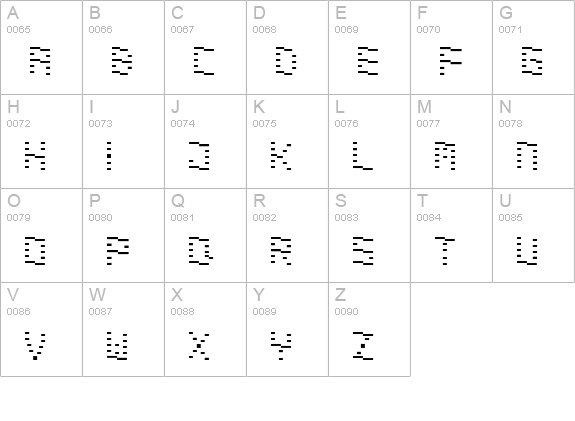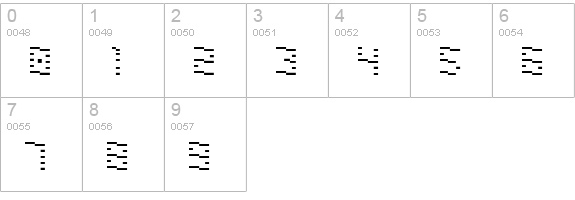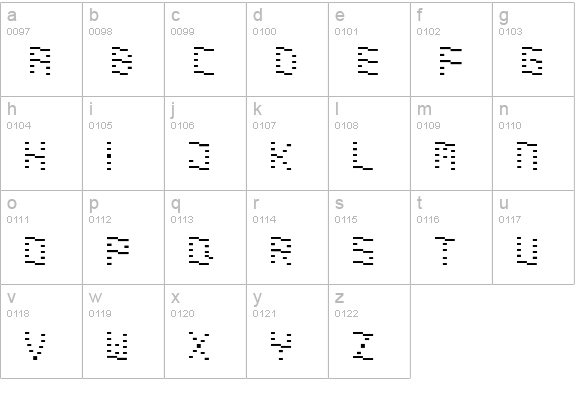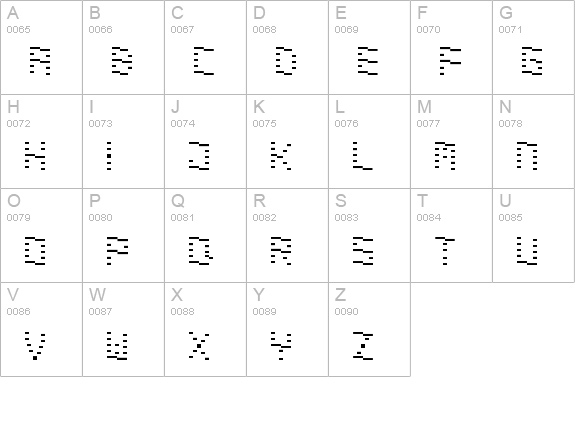
Dematerialise Thin is a delicate, low-contrast variant in the Dematerialise typeface family \xE2\x80\x94 well suited to fashion editorial, minimal branding, and high-contrast display.
Dematerialise Thin font is a visually captivating and elegantly designed typeface that effortlessly captures attention with its delicate and refined appearance. Its thin strokes and minimalistic structure make it perfect for projects that require a touch of sophistication and modernity. This font exudes a sense of grace and simplicity, making it a versatile choice for a wide range of design applications. From logo designs to editorial layouts, Dematerialise Thin font adds a touch of class and elegance to any project it is used in. With its clean lines and sleek design, this font is a true masterpiece that can effortlessly elevate your designs to the next level. Its thin proportions give it a refined and airy feel, making it ideal for projects that demand a light and minimalistic touch. But what makes Dematerialise Thin font even more appealing is that it is freely available to download at FontsMarket.com. This means that you can easily access and use this beautiful font in your projects without any hassle or cost. Whether you are a professional designer or an aspiring artist, having access to high-quality and free resources like Dematerialise Thin font can truly make a difference in your creative journey. So, if you are looking to add a touch of elegance and modernity to your designs, look no further than Dematerialise Thin font. With its captivating design and the added benefit of being freely available to download at FontsMarket.com, this font is sure to become an invaluable asset in your design toolbox.